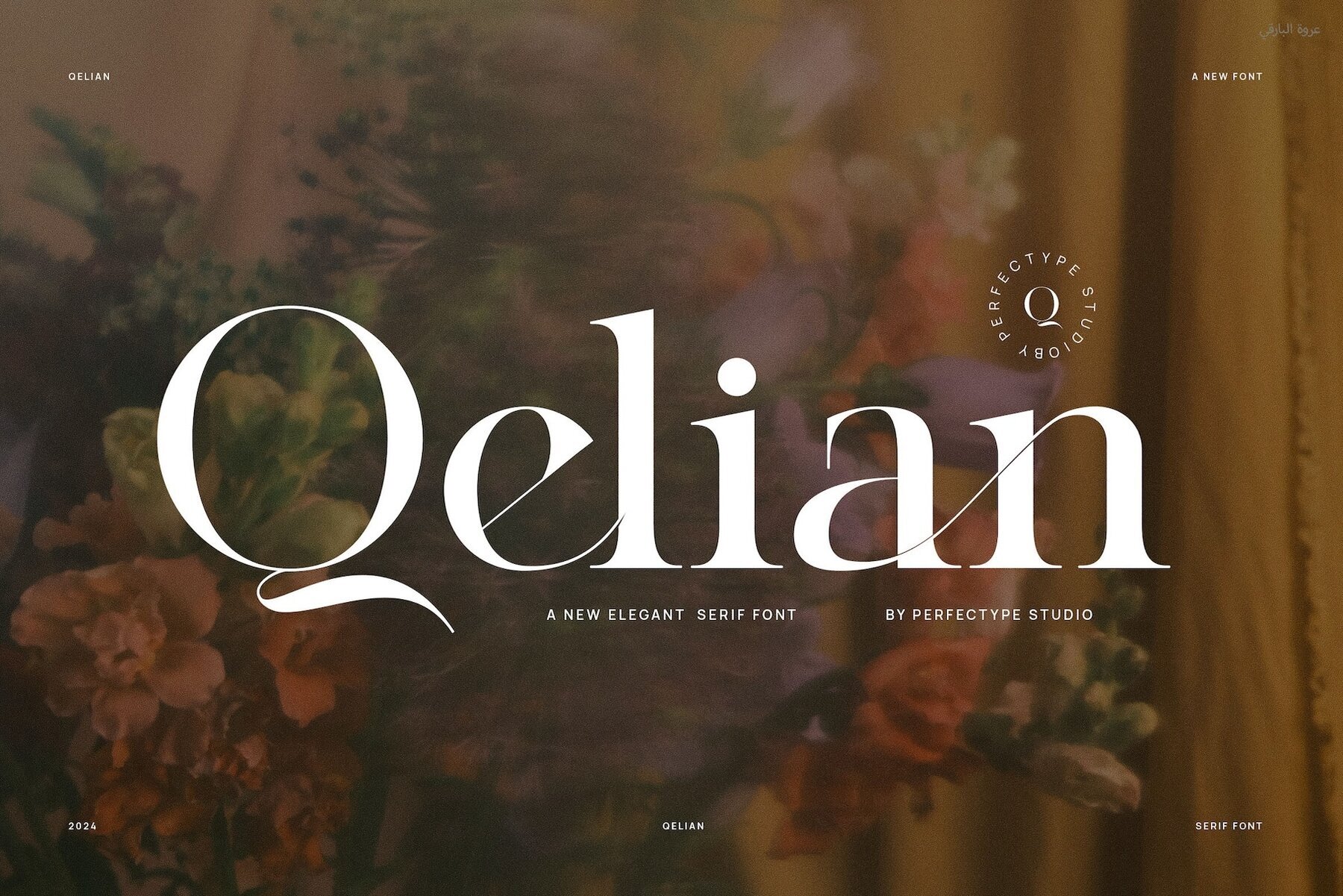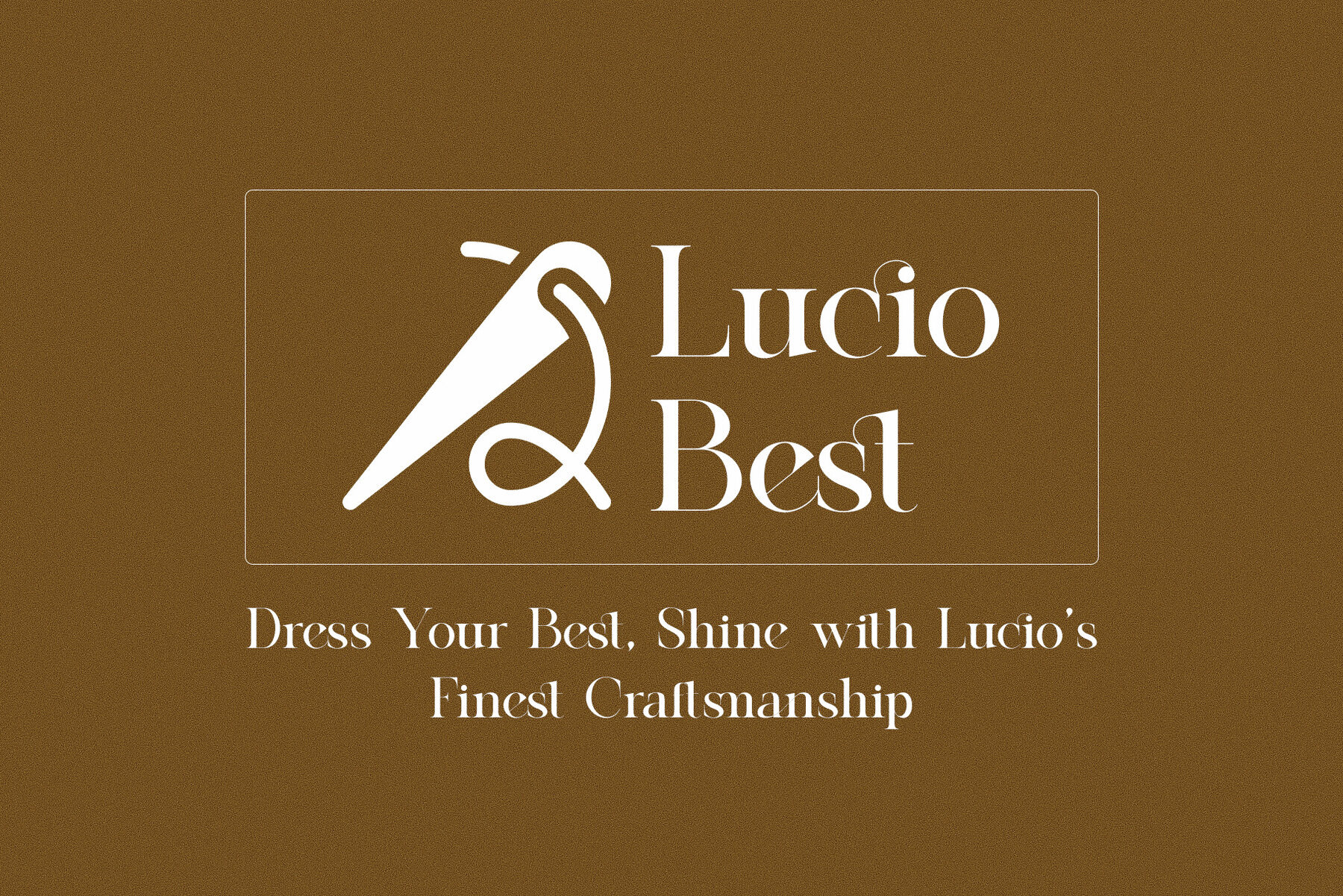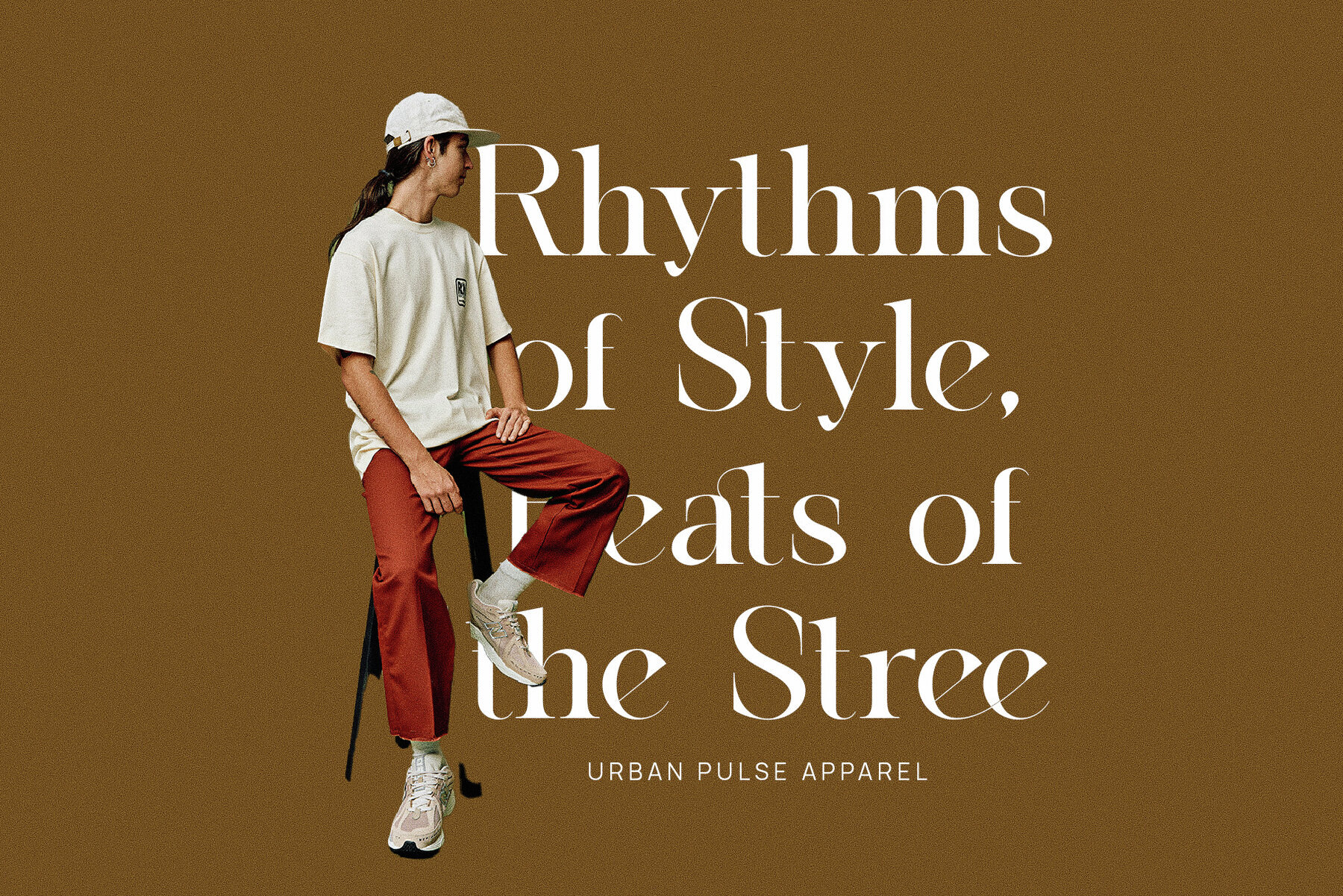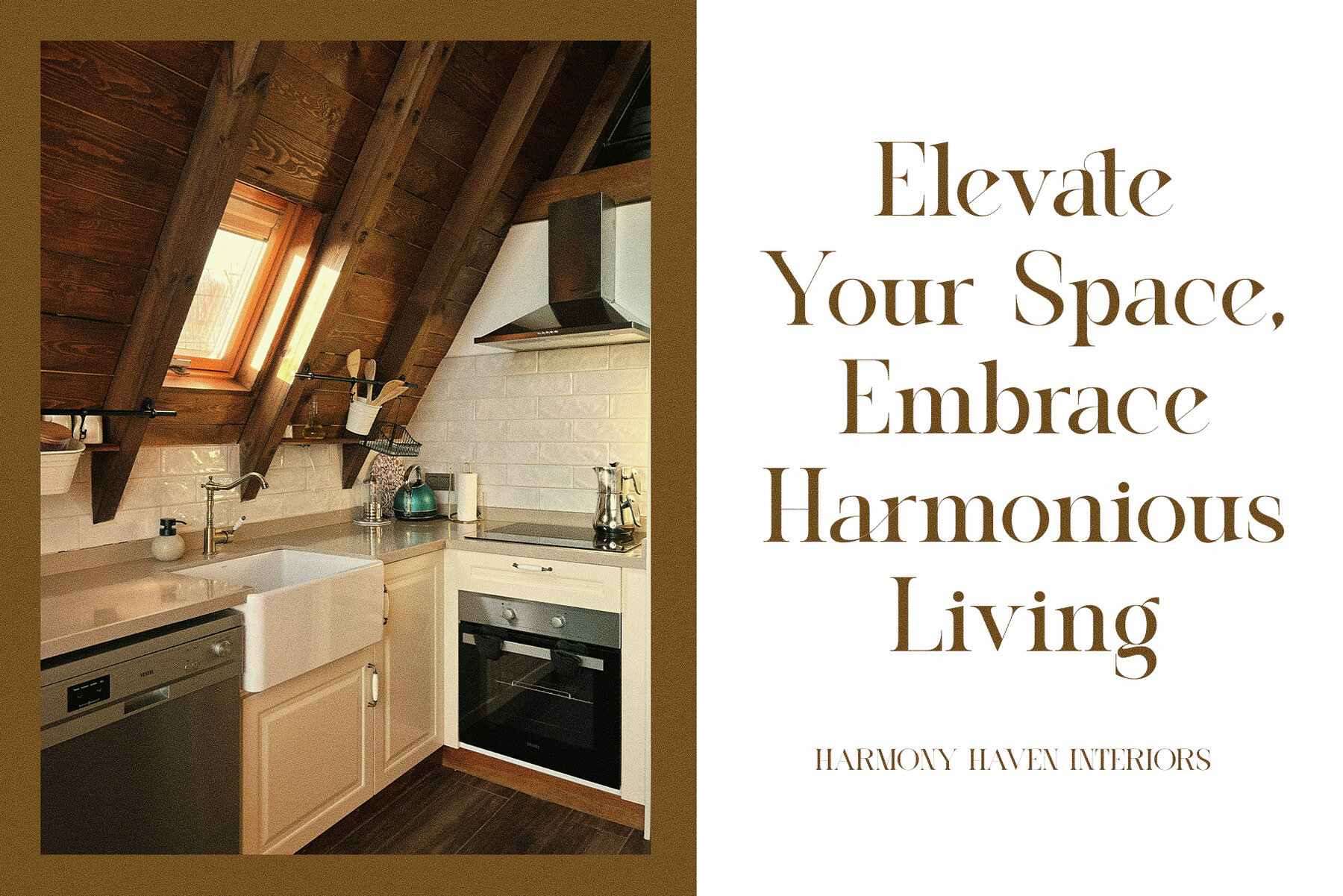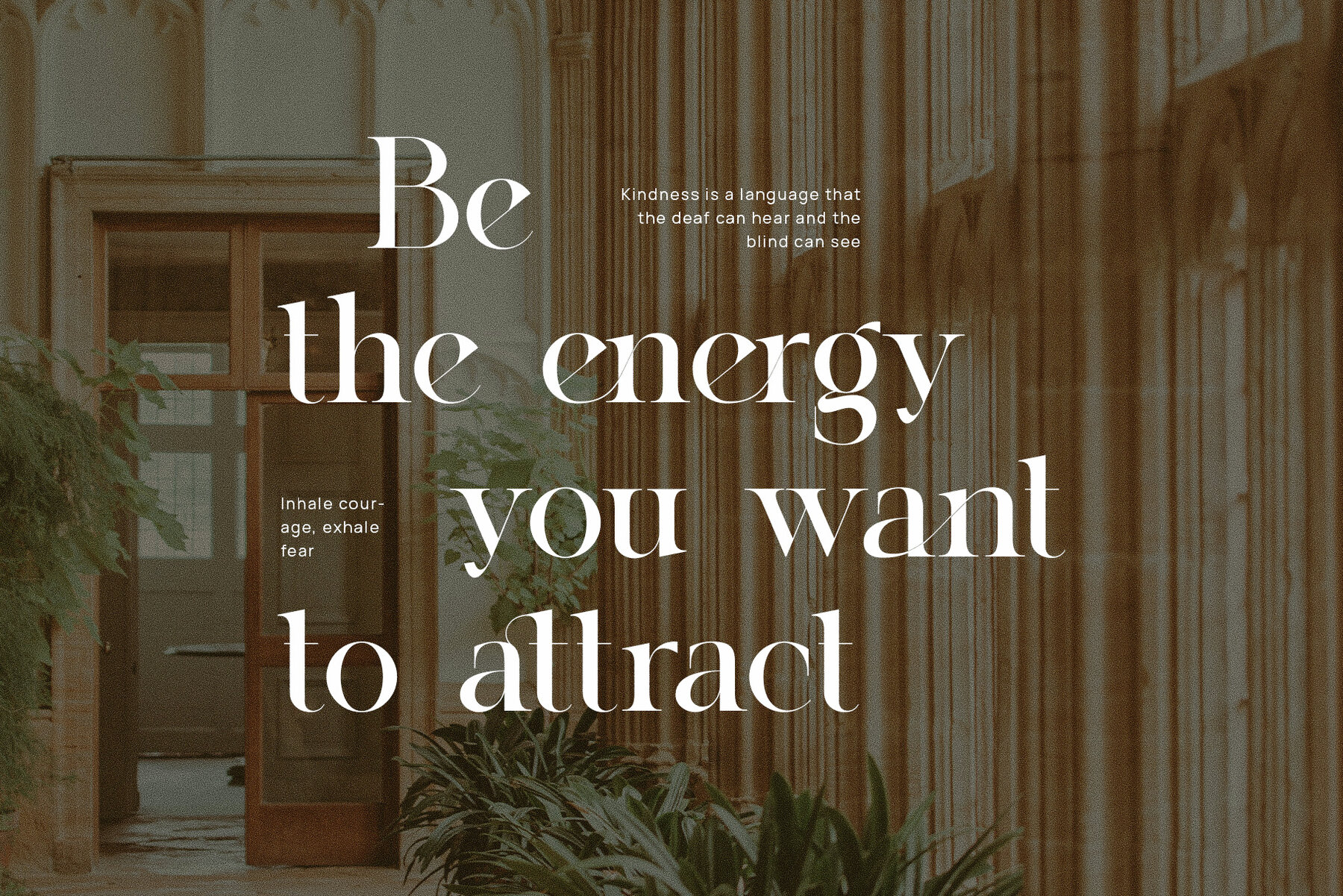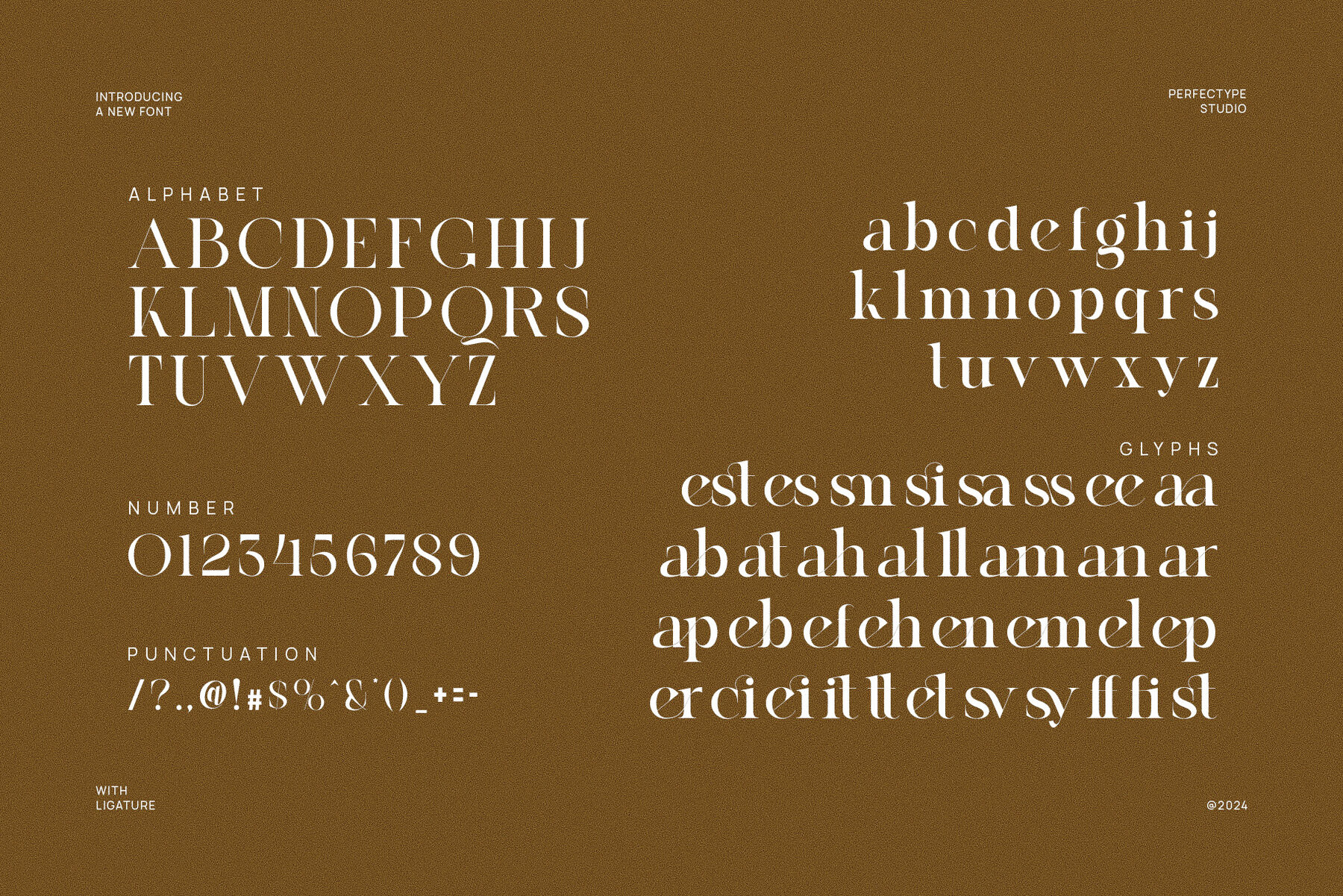
Qelian Font
Qelian
Qelian Elegant Serif Font exemplifies a perfect blend of modern sophistication and timeless charm. Its refined letterforms and graceful serifs add an air of elegance to any design project. With distinctive shapes, thoughtfully designed ligatures, and alternate characters, Qelian offers customization and fluidity, making it ideal for various creative endeavors. This font is particularly suited for high-end branding, luxury product packaging, and polished brand identities, excelling in both large headlines and smaller, detailed text such as those found in websites and magazines.
This versatile typeface shines in industries such as fashion, lifestyle, food, and luxury goods, bringing elegance and contemporary appeal to the forefront. Qelian’s elegant curves and fine details allow designers to merge modern aesthetics with classic refinement, providing a timeless, high-end look suitable for both digital and print media. Its graceful ligatures and smooth letterforms make Qelian the perfect choice for creating luxurious and memorable designs, whether for boutique logos, stylish magazines, or sophisticated editorials.